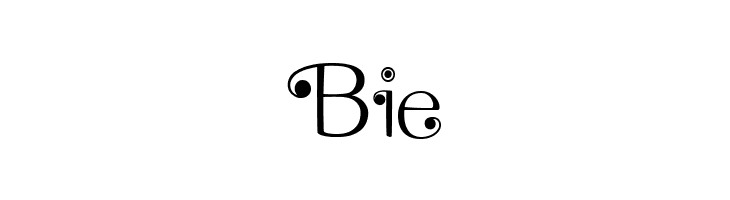
A sleek, elongated font with a modern and minimalist design.
A modern, tall, and narrow font with clean lines and minimal curves.
A whimsical and playful font with decorative curls and flourishes.
A bold, hand-drawn font with a playful and dynamic style.
A bold, condensed font with rounded edges and uniform strokes.
A decorative font styled like smartphone screens with a tech-inspired, modern look.
A hand-drawn, condensed font with a playful and informal style.
A modern, condensed italic font with uniform strokes and a dynamic slant.
A condensed, italicized font with a modern handwritten style.
A condensed, hand-drawn font with a casual and organic style.
A bold serif typeface with high contrast and a modern yet classic style.
A modern serif typeface with high contrast and elegant serifs.
A modern, italic font with clean lines and balanced proportions.